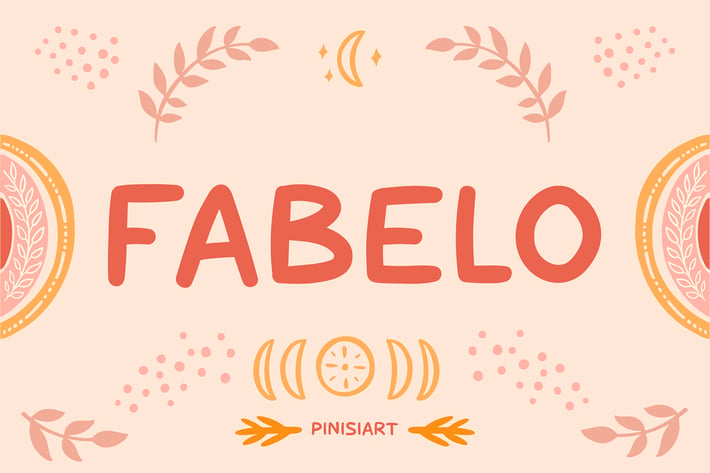
Children Book Font - Fabelo
FABELO is a playful and lively kids' font designed to bring a sense of joy and creativity to any project. Its quirky, rounded shapes and whimsical style make it perfect for children's materials and designs that radiate fun and imagination. FABELO captures the innocence and energy of childhood, making it an ideal choice for youthful and vibrant visuals.
Market Applications
Children’s Books & Storybooks
FABELO shines as a font for storybook titles, chapter headings, or illustrations, adding a playful and inviting feel for young readers.
Educational Materials
Perfect for worksheets, flashcards, or activity books, FABELO makes learning engaging and visually exciting for kids.
Toy & Game Packaging
Ideal for branding toys, board games, or puzzle boxes, FABELO’s fun aesthetic appeals to both kids and parents alike.
Party Invitations & Event Decor
Bring a cheerful touch to birthday party invitations, banners, or decorations with FABELO’s colorful and energetic vibe.
Kids' Merchandise
FABELO works wonderfully for T-shirts, backpacks, lunchboxes, and other children's products, creating designs that are playful and unique.